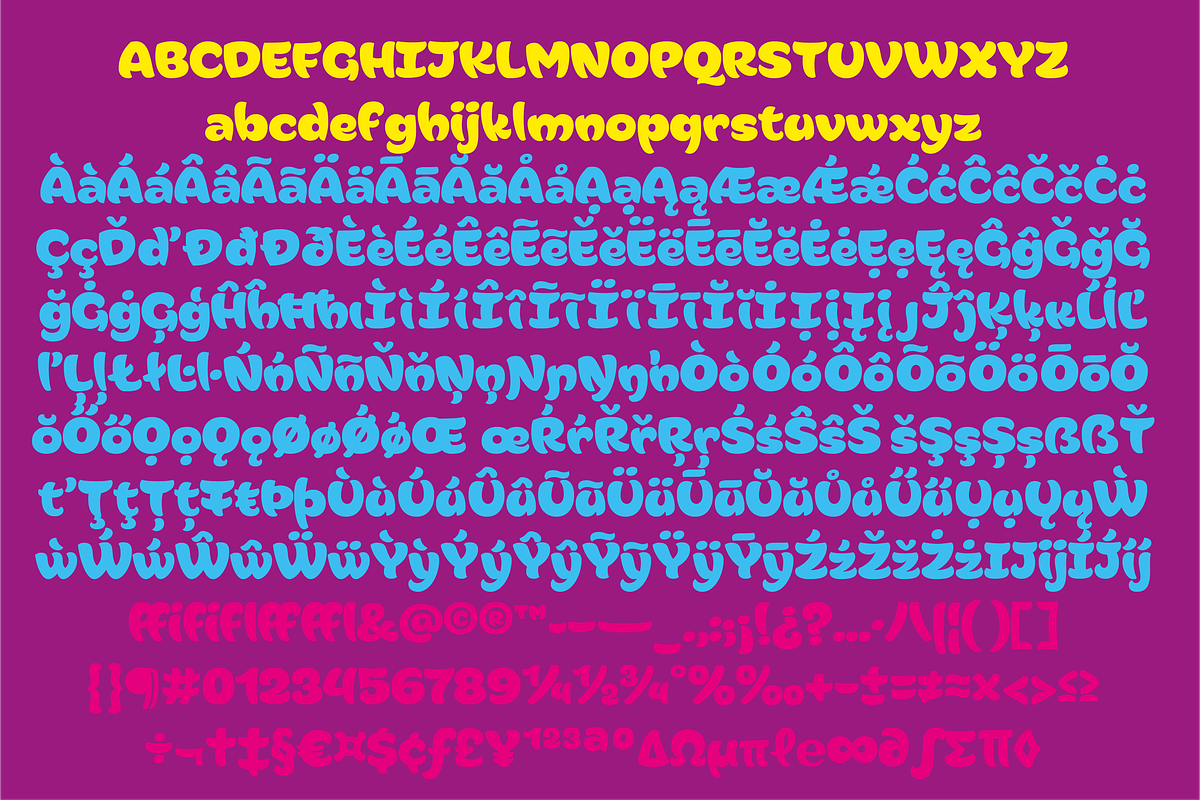
Papaia
Papaia is a font inspired by the spirit of teenagers. Curvy letters with rythm easy to read with a selection of 200 emojis ready to use. All the font has 630 glyphs that support all the characters for the Latin Plus languages from Europe, America, Africa, Australia and Asia.
Papaia es una fuente inspirada por el espíritu de los adolescentes. Letras fáciles de leer con curvas y ritmo, viene con una selección de 200 emojis listos para usar. La fuente tiene 630 glifos que permite ser usada para los idiomas con signos latinos de Europa, América, África, Oceanía y Asia.